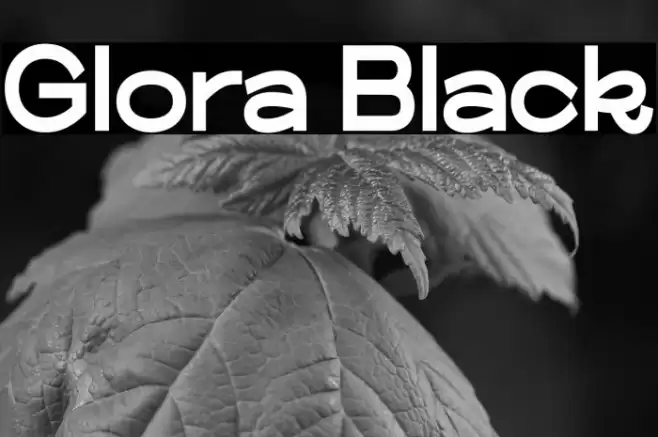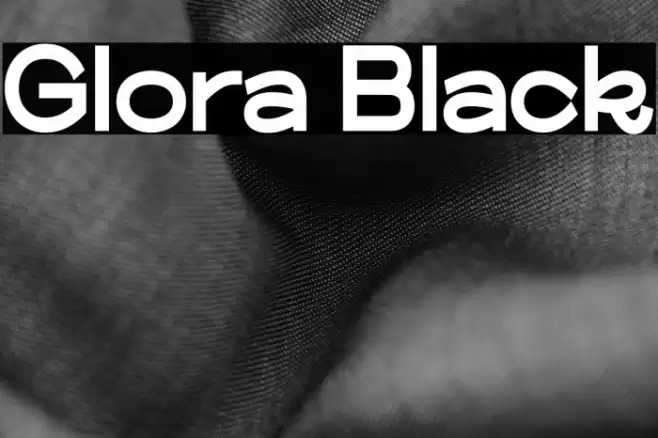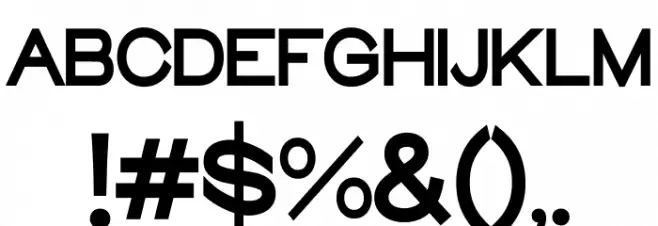
Glora Black Font
Glora Black Description
This font is a bold and modern sans-serif typeface characterized by its clean lines and geometric shapes. The uppercase letters are uniform in height, with a consistent stroke width that gives a strong and impactful appearance. The lowercase letters maintain a similar style, with rounded edges that soften the overall look. The numerals are clear and easy to read, matching the boldness of the alphabet. Special characters are well-integrated, maintaining the same weight and style as the letters and numbers. This font is versatile, suitable for various design needs where a contemporary and assertive typeface is required.
A bold, modern sans-serif font with clean lines and geometric shapes from Regular fonts.
- Proposed Projects: Ideal for branding, advertising, headlines, and digital media projects.